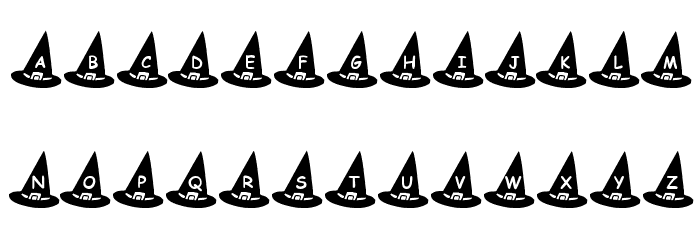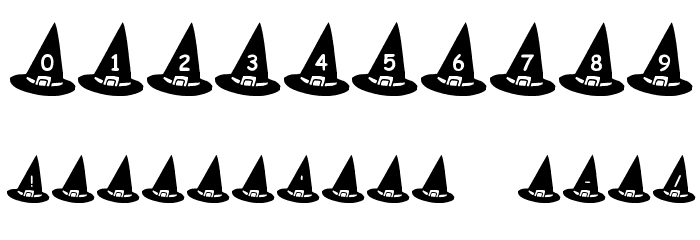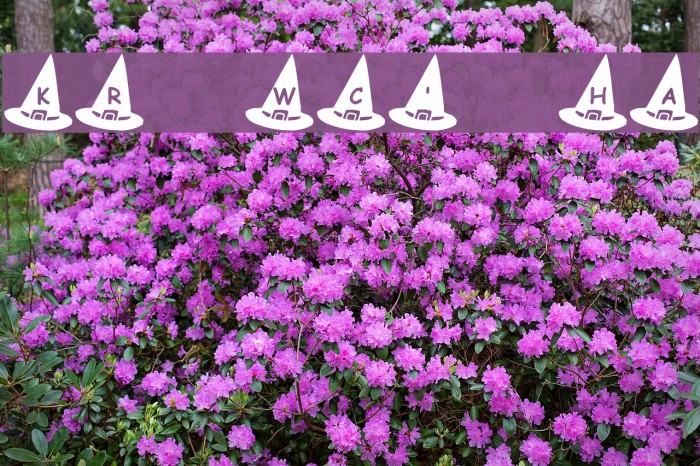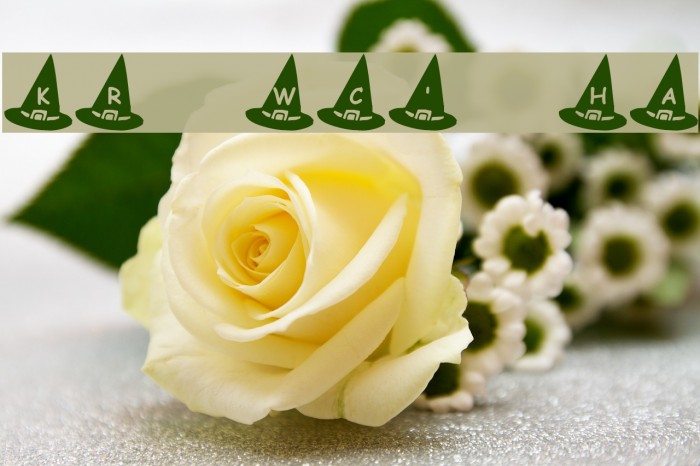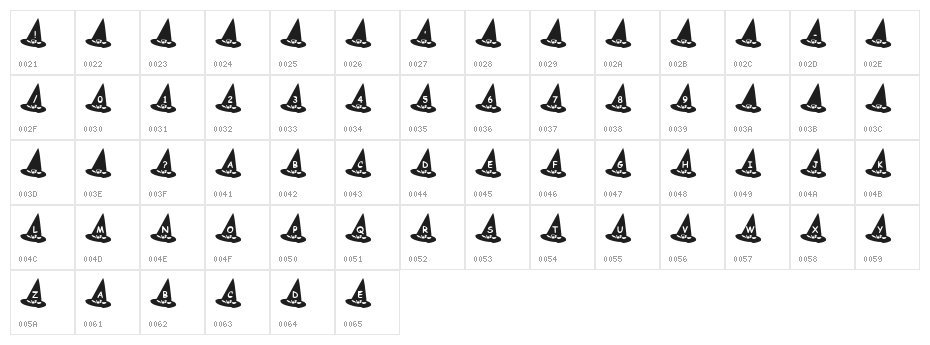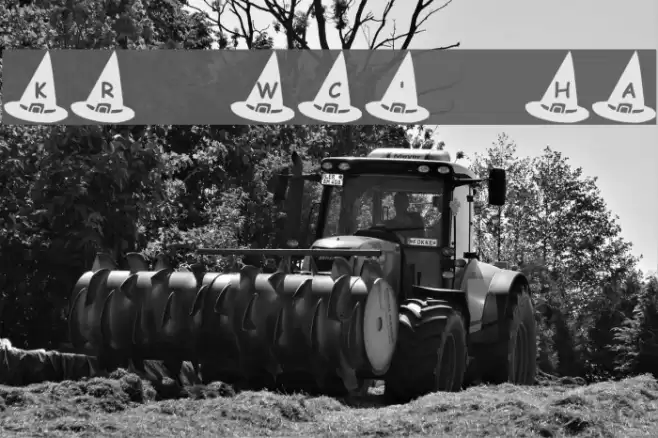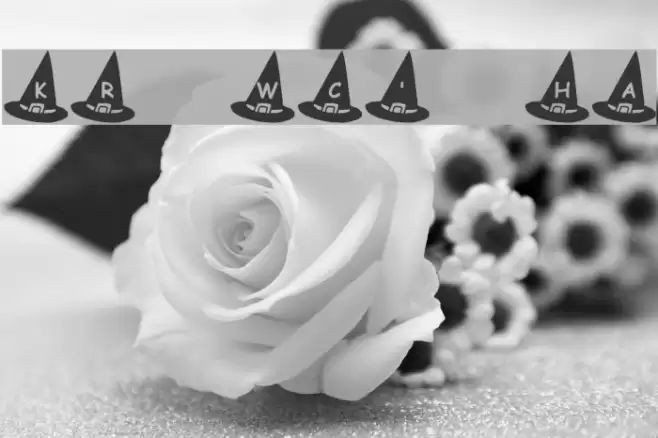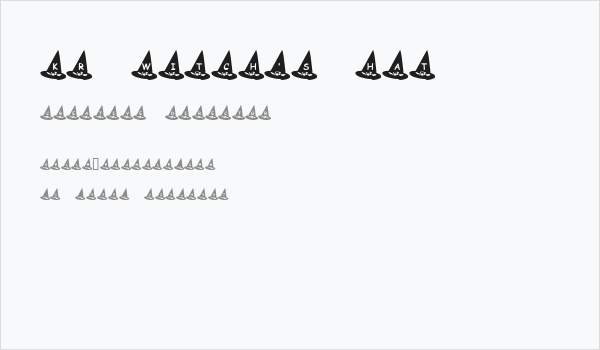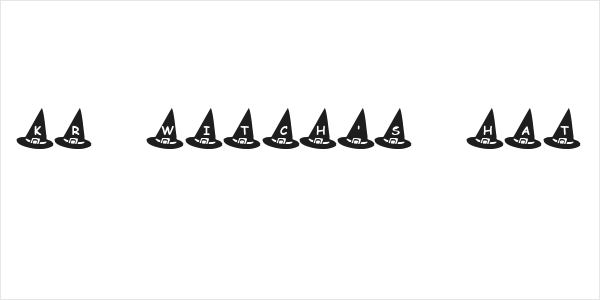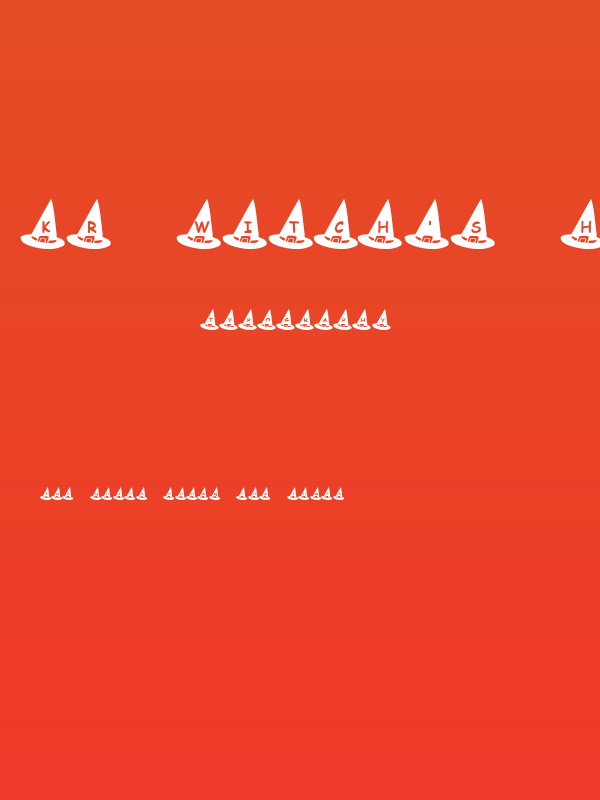
KR Witch's Hat Font
This playful and thematic font features each character embedded within a stylized witch's hat, creating a whimsical and enchanting appearance. The letters and numbers are bold and clear, making them easily readable despite the decorative elements. The witch's hat motif adds a unique and festive touch, perfect for Halloween-themed projects or any design requiring a magical or mystical vibe. The consistent use of the hat design across all characters ensures uniformity, while the bold strokes provide a strong visual impact.
A whimsical font with characters embedded in witch's hats, perfect for festive designs.
- Proposed Projects: Ideal for Halloween invitations, party decorations, themed posters, and children's book covers.